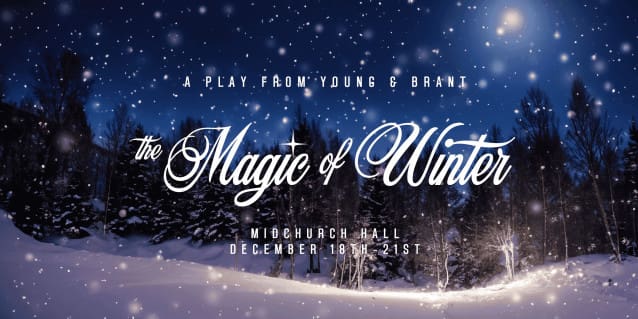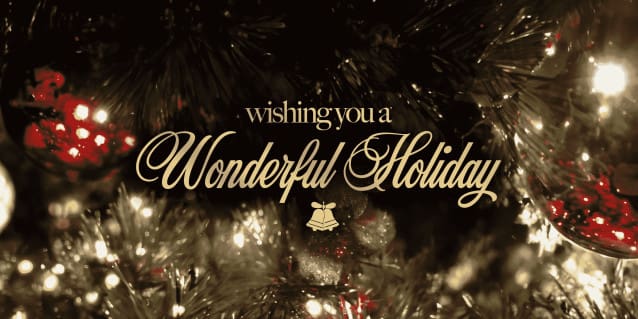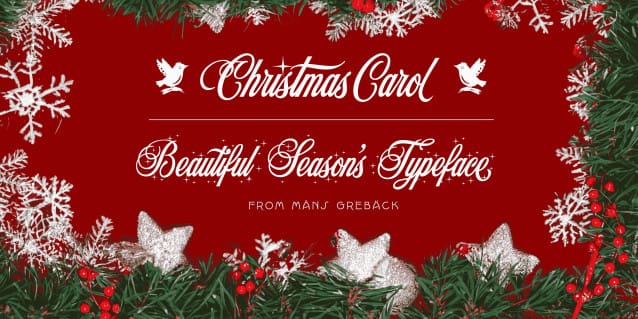
Christmas Carol Font
Christmas Carol Font is a classic typeface that embraces the holiday spirit. Infused with a touch of nostalgia, ChristmasCarol wraps your words in the comfort of yuletide cheer.
Using the Star version, use parenthesis characters ( ) [ ] { } to make surrounding stars.
Example: (reindeer) {sleigh}
Use underscore _ to make a swash, or multiple underscores to make them longer.
Example: Santa Claus______